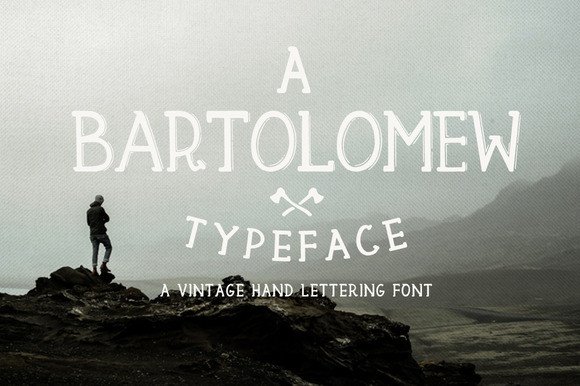
Dive into the world of Bartolomew Font, a captivating monoline handwritten creation from Blue Robin Design Shop. Designed to make an impact, Bartolomew excels in personal projects and unconventional designs. Its effortless readability and adaptability to both retro and modern aesthetics make it the perfect choice for any creative endeavor.
With Bartolomew, you'll discover a font that possesses a distinctive charm and style. Its lines flow with a grace that draws the eye, inviting readers to engage with your content. Whether you're crafting invitations, branding materials, or eye-catching social media graphics, Bartolomew is your go-to font for leaving a lasting impression.
Beyond its aesthetic appeal, Bartolomew is also meticulously crafted for readability. Its carefully designed letterforms ensure that your messages are conveyed clearly and effectively, even at smaller sizes. This makes it an excellent choice for both print and digital applications, where clarity and impact are paramount.
Embrace Bartolomew Font and embark on a creative journey that will elevate your designs to new heights. Its versatility, charm, and readability make it an indispensable tool for any designer seeking to make a statement. Bartolomew is more than just a font; it's an artistic expression waiting to be unleashed.